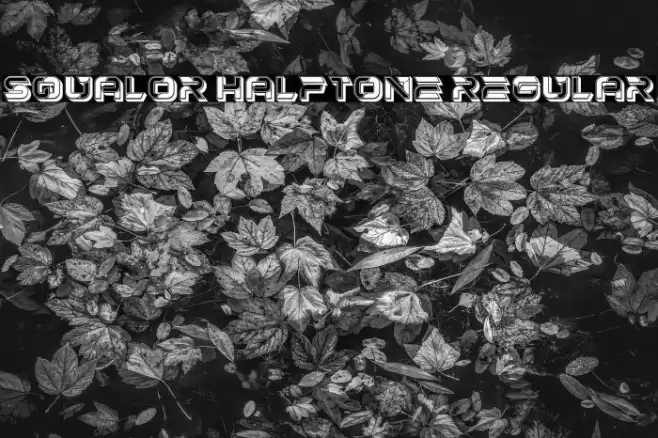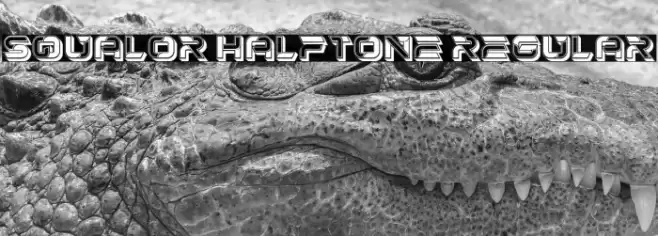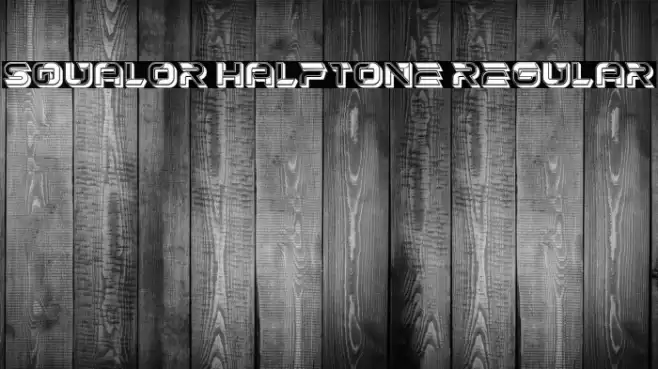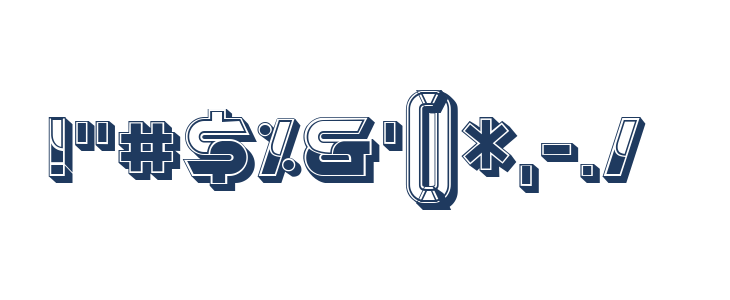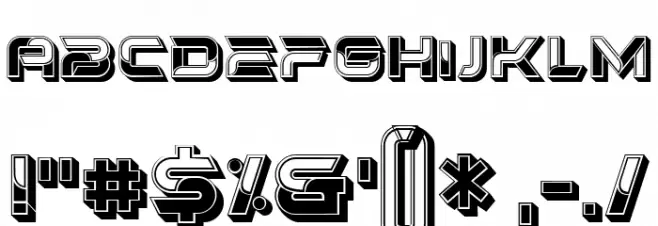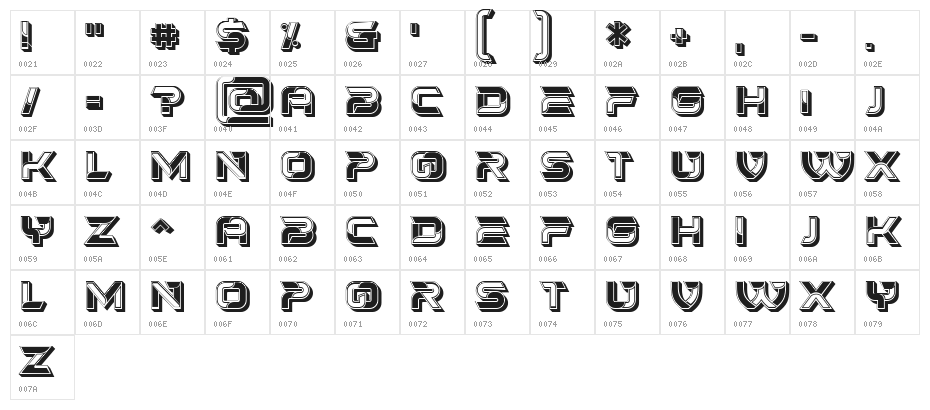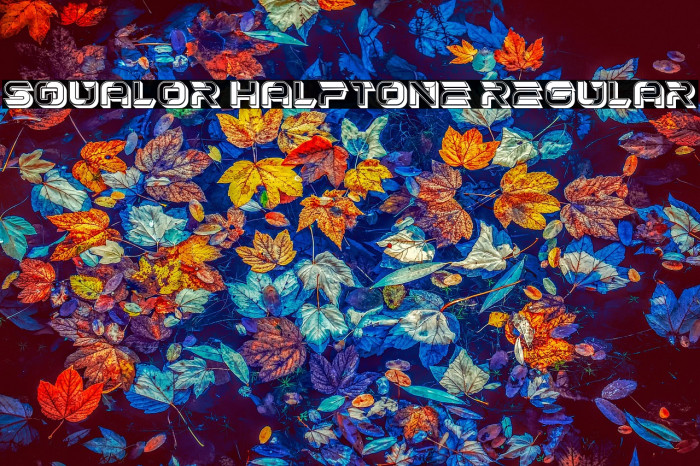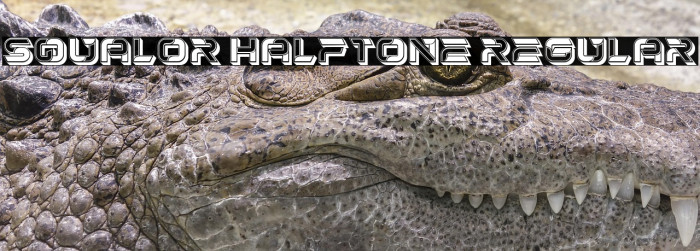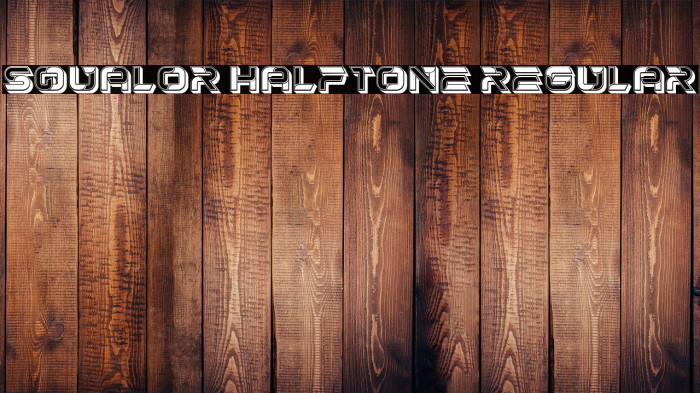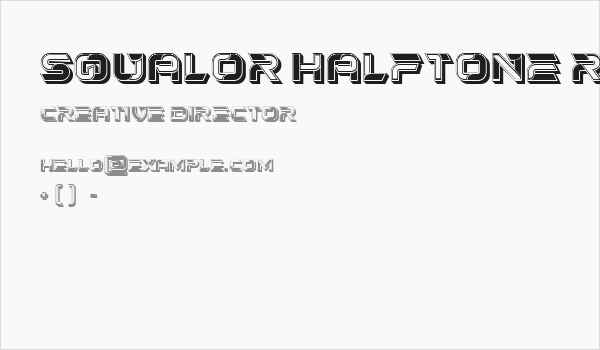
Squalor Halftone Regular Font
Squalor Halftone Regular Description
This font features a bold, geometric design with a distinct halftone effect that gives it a three-dimensional appearance. The characters are constructed with thick, angular lines and sharp edges, creating a futuristic and industrial feel. The halftone pattern adds depth and texture, making it stand out in any design. The uppercase letters are uniform in height, while the lowercase letters maintain a consistent style. The numerals and special characters are designed to match the bold and dynamic aesthetic of the alphabet, ensuring a cohesive look across all text elements.
A bold, geometric font with a halftone effect, offering a futuristic and industrial style from Uncategorized fonts.
- Font: Squalor Halftone Regular
- Proposed Projects: Ideal for use in posters, logos, video game graphics, and any project requiring a modern, edgy look.
- Overall Style: Futuristic